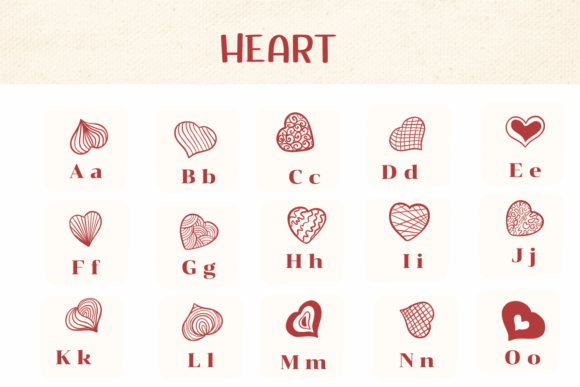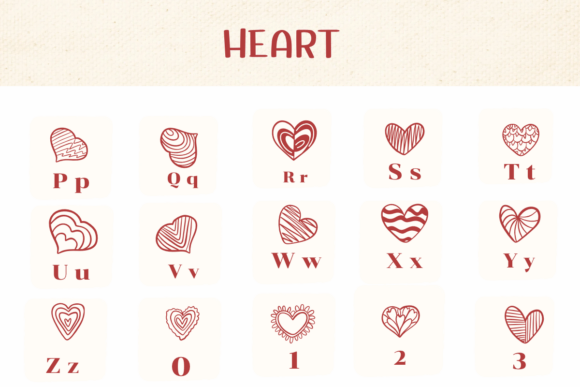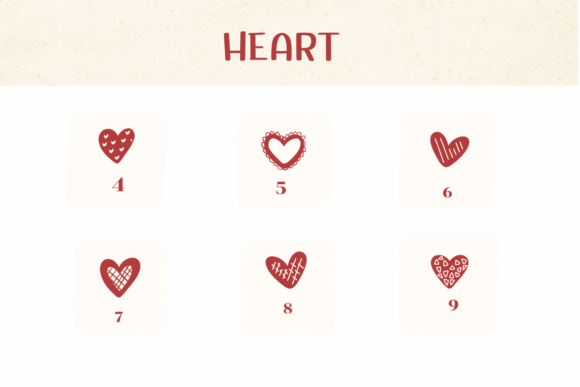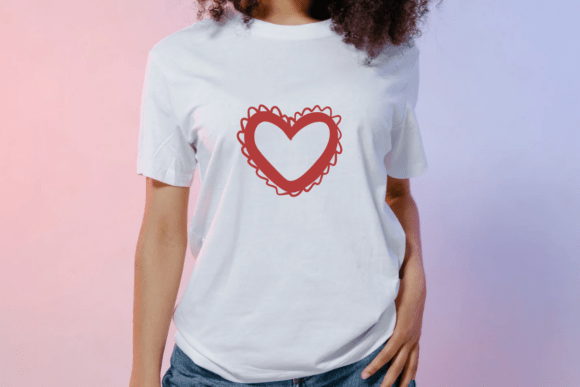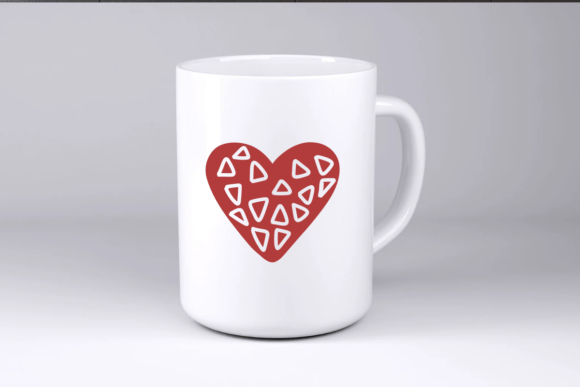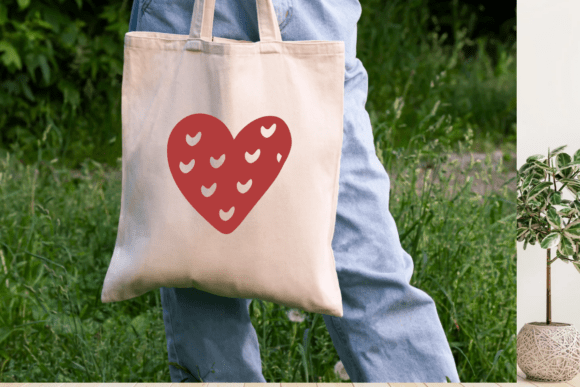
Heart Font: The Perfect Addition to Your Romantic Projects
Are you a designer or crafter looking for a unique and romantic font to enhance your creative projects? Look no further than the Heart Font, a beautiful dingbats font that is perfect for adding a touch of love and elegance to your work. In this article, we’ll explore the features and benefits of the Heart Font, and show you how it can be used to take your projects to the next level.
What is Heart Font?
Heart Font is a dingbats font that features a collection of heart-shaped characters, including symbols, icons, and ornaments. This font is specifically designed with a romantic theme in mind, making it perfect for projects such as wedding invitations, anniversaries, Valentine’s Day cards, and other love-themed crafts.
Features of Heart Font
The Heart Font has several features that make it a versatile and valuable addition to your font collection. Some of its key features include:
- Unique and Romantic Design: The Heart Font features a beautiful and unique design that is sure to add a touch of romance and elegance to your projects.
- Wide Range of Characters: The font includes a wide range of characters, including symbols, icons, and ornaments, giving you plenty of options for creative expression.
- Scalable: The font is scalable, allowing you to use it in a variety of projects, from small crafts to large-scale designs.
Uses for Heart Font
The Heart Font is a versatile font that can be used in a wide range of creative projects. Some of the most popular uses for this font include:
- Wedding Invitations: The Heart Font is perfect for creating beautiful and romantic wedding invitations that set the tone for a special day.
- DIY Crafts: The font can be used to create a variety of DIY crafts, such as cards, gift tags, and decorations.
- Logos and Branding: The Heart Font can be used to create custom logos and branding materials for businesses and organizations with a romantic or love-themed focus.
- Decorations: The font can be used to create beautiful decorations, such as garlands, banners, and other festive elements.
Tips for Using Heart Font
Here are a few tips for getting the most out of the Heart Font:
- Experiment with Different Sizes and Colors: Don’t be afraid to experiment with different sizes and colors to find the perfect look for your project.
- Combine with Other Fonts: The Heart Font can be combined with other fonts to create a unique and interesting look.
- Use in Combination with Images: The font can be used in combination with images, such as photographs or illustrations, to create a beautiful and eye-catching design.
The Heart Font is a beautiful and versatile font that is perfect for designers and crafters looking to add a touch of romance and elegance to their projects. With its unique and romantic design, wide range of characters, and ease of use, this font is sure to become a favorite in your font collection. Whether you’re creating wedding invitations, DIY crafts, or logos and branding materials, the Heart Font is the perfect choice.